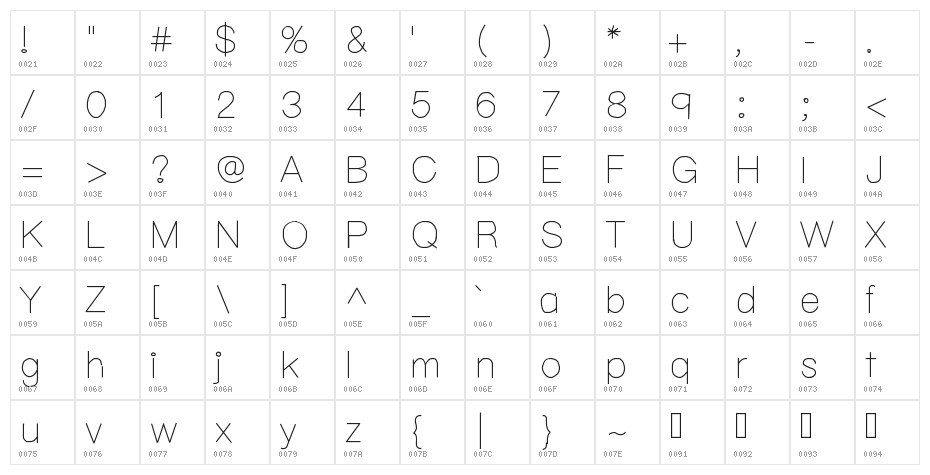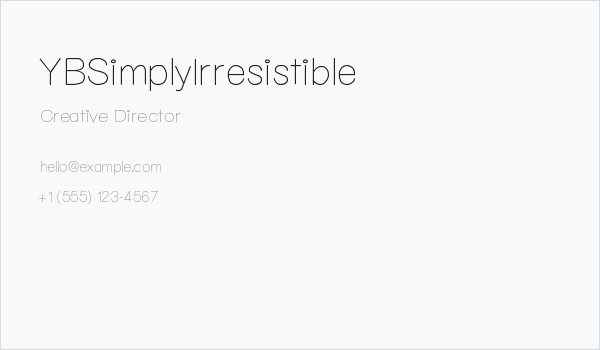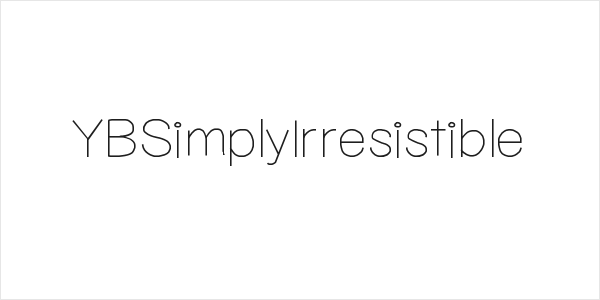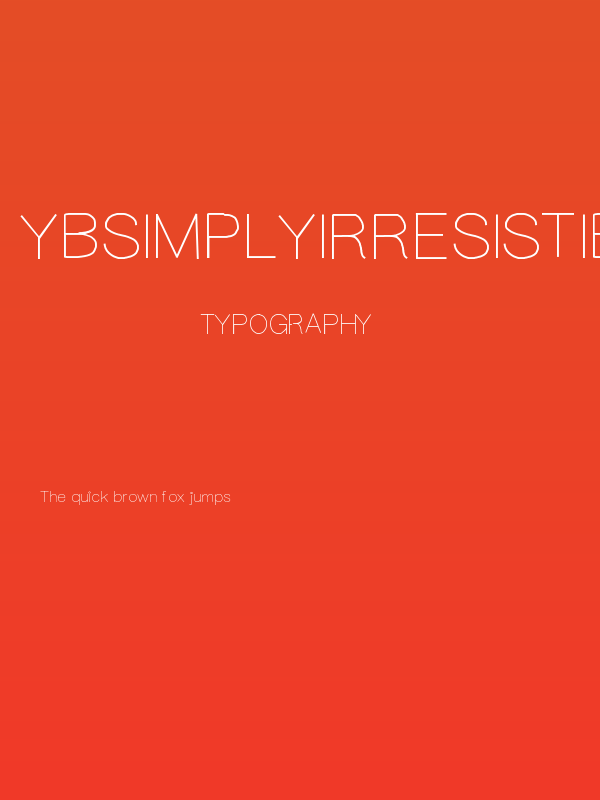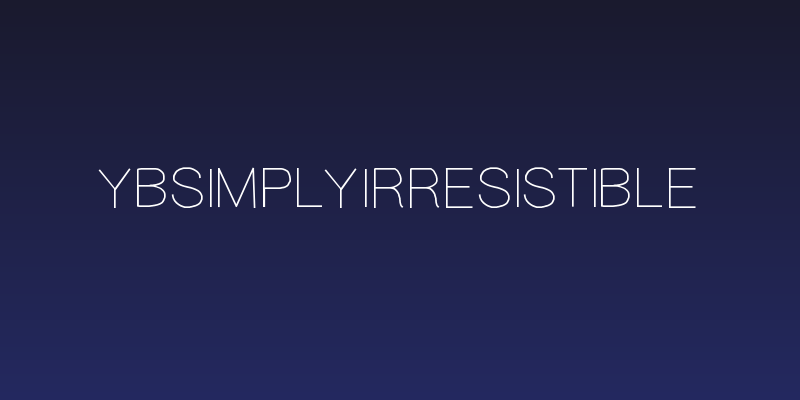
YBSimplyIrresistible Font
YBSimplyIrresistible Description
This font features a clean and modern sans-serif style with a geometric structure. The characters are evenly spaced, providing a balanced and harmonious appearance. The uppercase letters are tall and slightly narrow, while the lowercase letters maintain a consistent height, contributing to its legibility. The numerals are proportional and align well with the overall design. Special characters are distinct and integrate seamlessly with the alphabetic characters. The thin strokes and uniform line weight give it a sleek and contemporary look, making it suitable for a variety of design applications.